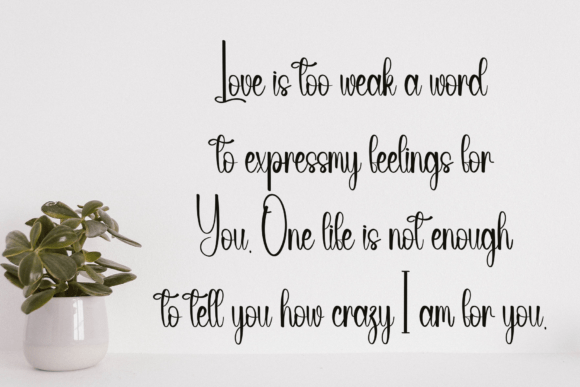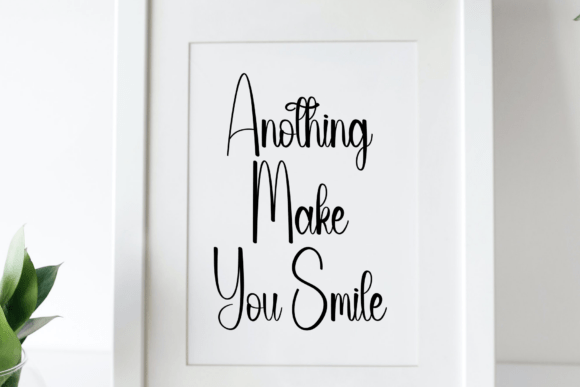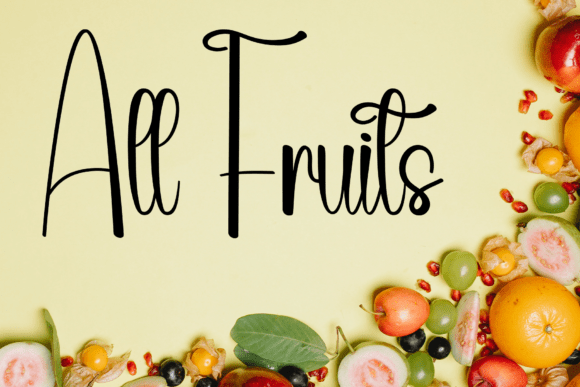
Introduction to Delirian Font
Have you ever been stuck on a creative project, staring blankly at a blank page, searching for that perfect font to bring your vision to life? You know the feeling when you’re on the verge of a breakthrough, but just need that one special element to push you over the edge. For many designers, this is exactly what happened when they discovered the enchanting Delirian Font.
This sweet and beautiful handwritten font is more than just a pretty face – it’s a valuable design resource that can elevate any project with its unique, dancing characters that add a touch of whimsy and personality. With its high-quality design and transparent background, Delirian Font is the perfect addition to any creative endeavor, whether you’re working on a blog post, social media graphics, or even a children’s book.
Key Features of Delirian Font
- Unique, hand-drawn design for creative projects, offering a high level of expressiveness.
- Features a high-quality design with intricate details, suitable for use in various contexts, including digital art and print materials.
- Designed to be highly legible, making it perfect for use in body text, titles, and headings in creative projects.
Honest Review: Delirian Font
As a designer, I’m always on the lookout for high-quality design resources to enhance my creative projects. Recently, I stumbled upon the Delirian Font, and I’m excited to share my honest review with you.
What works well: ✨ The Delirian Font is incredibly versatile, suitable for a wide range of design applications, from logos and branding to digital products and websites. Its unique, hand-drawn style adds a touch of elegance and sophistication to any design project. I also appreciate the transparent background, which makes it easy to combine with other design elements.
What could be improved: ⚠️ One potential limitation of the Delirian Font is its limited character set. While it’s perfect for headings and titles, it may not be suitable for large blocks of text. Additionally, the font’s irregularities can make it challenging to read at small sizes.
Overall impression: The Delirian Font is a fantastic design resource that can elevate any creative project. With its high-quality design and transparent background, it’s a must-have for any designer. While it may have some limitations, I believe it’s a worthwhile investment for designers looking to add a unique touch to their work.
- Perfect for headings and titles
How to Use Delirian Font
Delirian Font Overview
The Delirian Font is a high-quality design resource ideal for creative projects. This font is available for free download and features a transparent background, making it versatile for various design applications.
Getting the Most Out of Delirian Font
To get the most out of the Delirian Font, use it in conjunction with other design resources and experiment with different font sizes, colors, and styles.
The Delirian Font is commonly used in graphic design, digital art, and creative writing projects. Its transparent background makes it ideal for use in logos, icons, and other design elements.